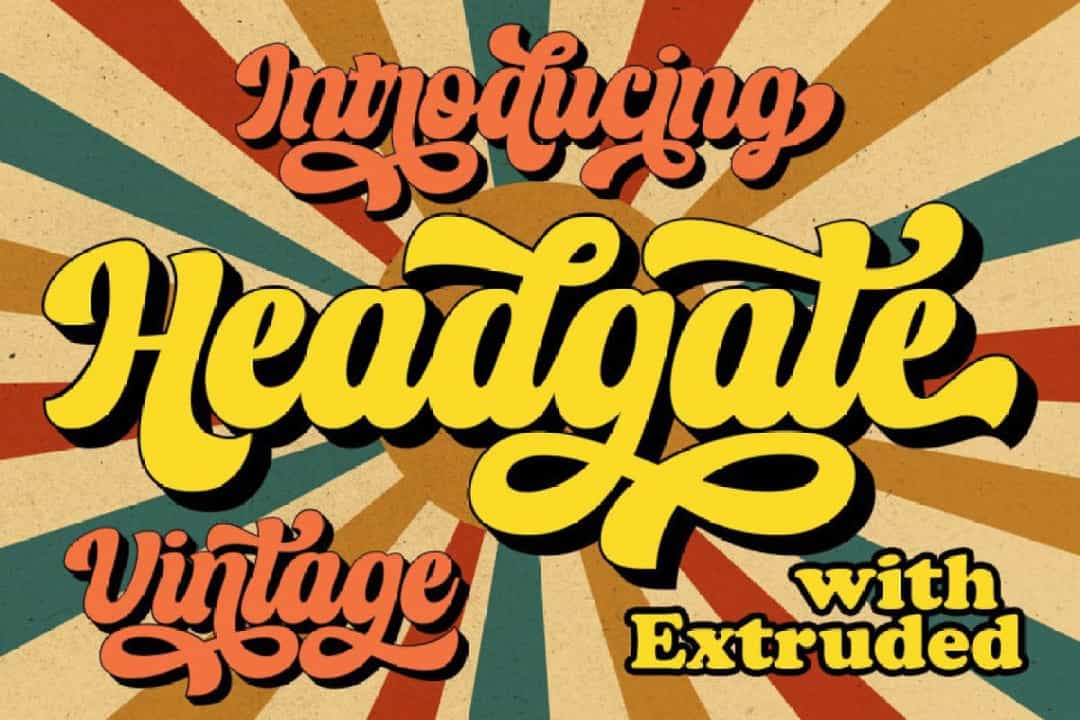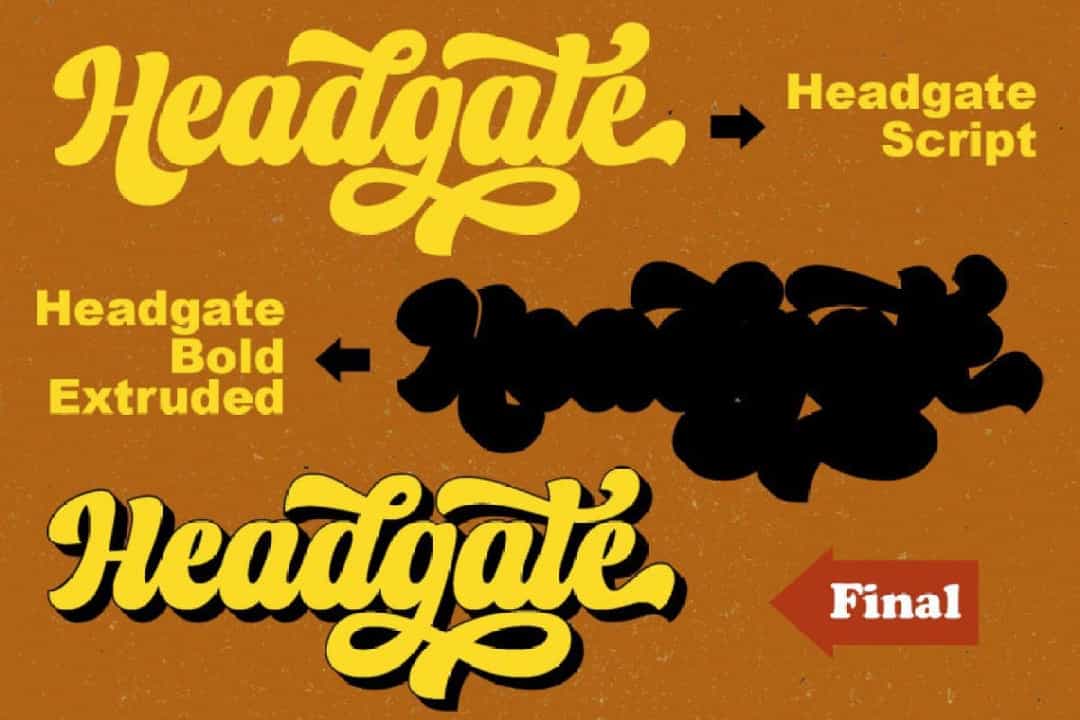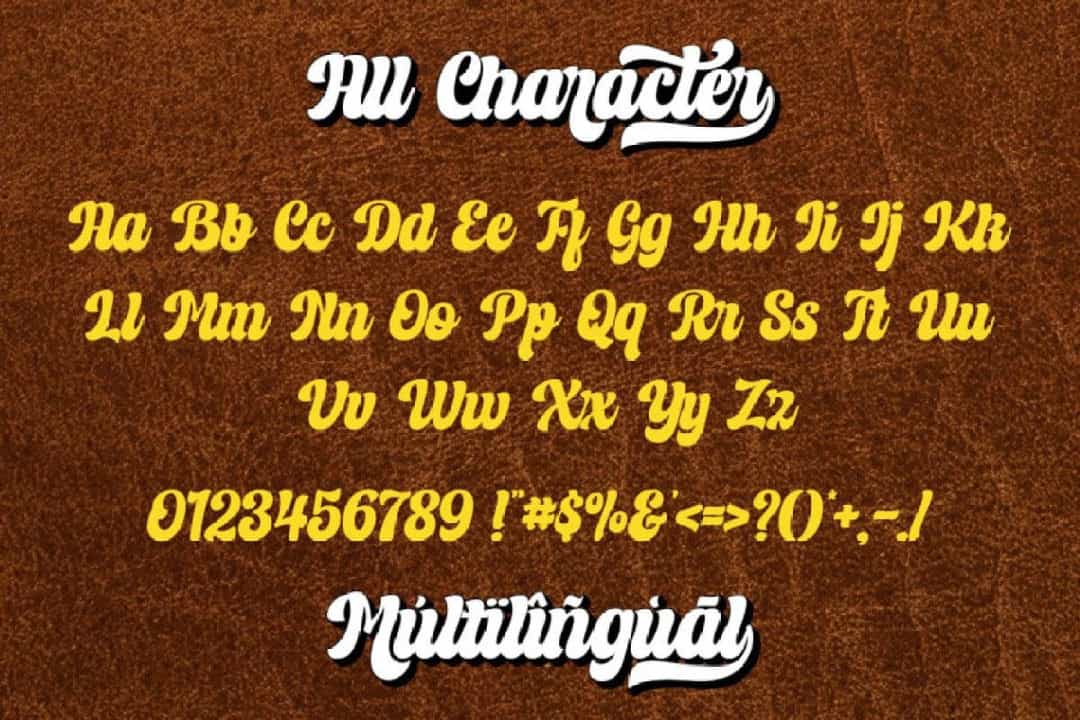
Headgate font exudes classic charm while exuding timeless elegance. With its bold font and alternative shadow features, Headgate adds a nostalgic charm that fits any style perfectly – ideal for logos, branding or headlines due to its slick strokes and smooth curves that attract the attention.